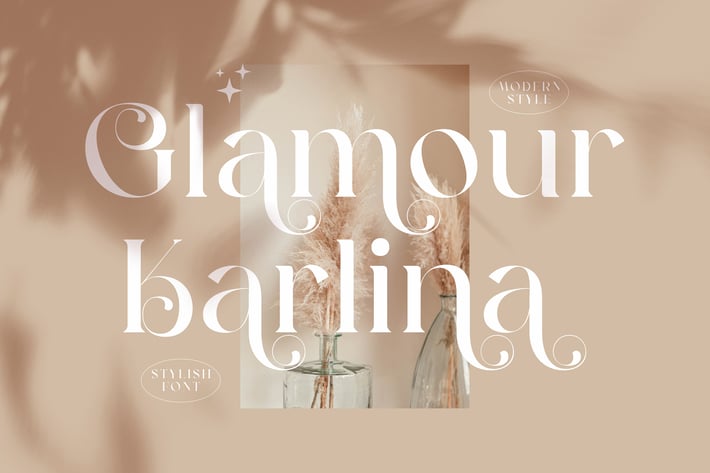
Glamour Karlina Beautiful Serif Font
Glamour Karlina is a chic, high-contrast serif that blends modern refinement with soft, ornamental curls. Its tall proportions, graceful terminals, and dreamy swashes bring instant luxury to headlines while remaining readable for brand marks and short text. With generous alternates and ligatures, you can dial the mood from poised and polished to lavish and romantic across print and digital projects.
+ A–Z uppercase & lowercase
+ Numerals & punctuation
+ Stylistic alternates & contextual alternates
+ Elegant swashes & discretionary ligatures
+ Smooth kerning & baseline alignment
+ Multilingual support (Latin)
+ Branding & logos
+ Fashion/lifestyle packaging
+ Wedding suites & invitations
+ Posters & magazine covers
+ Social media graphics
+ Elegant website headers.
A glamorous serif with romantic swashes—crafted to make luxury feel effortless.